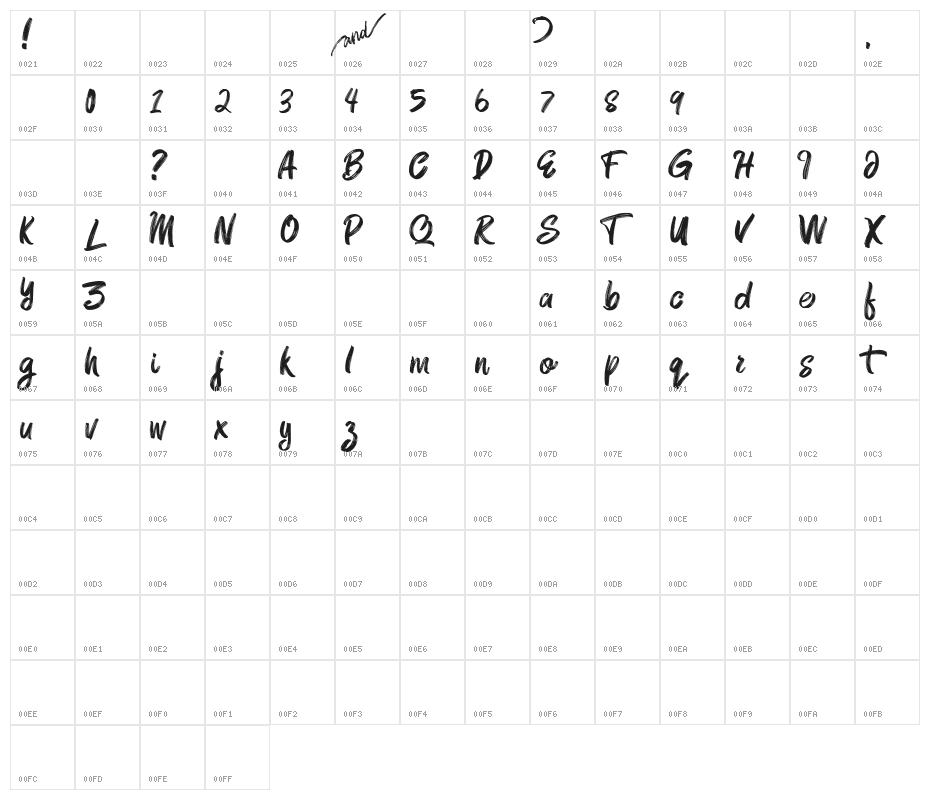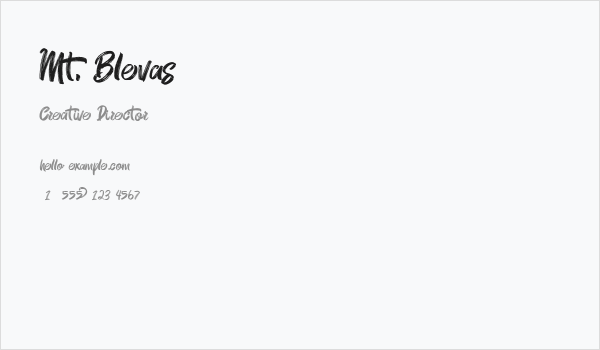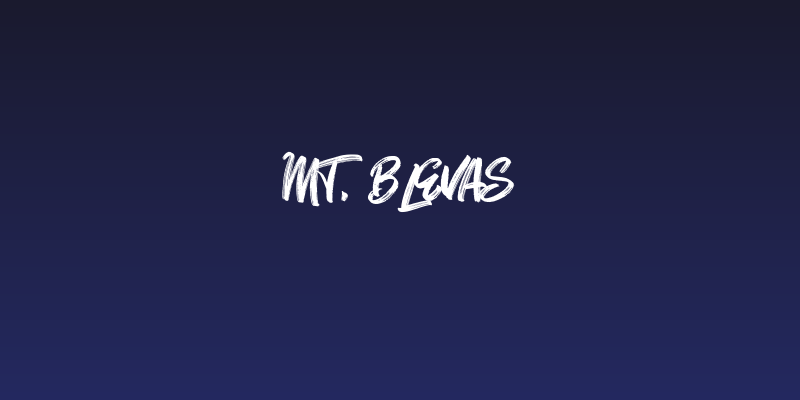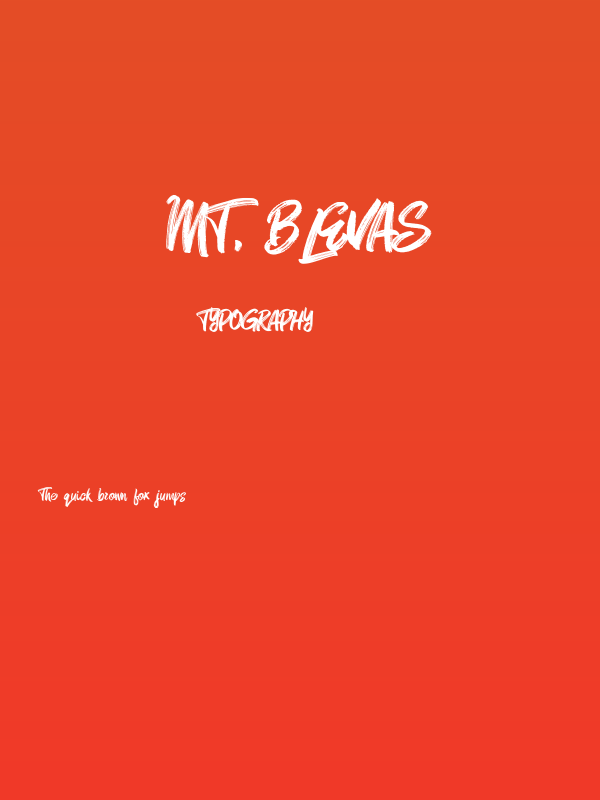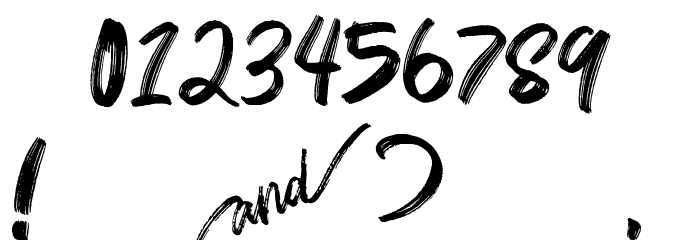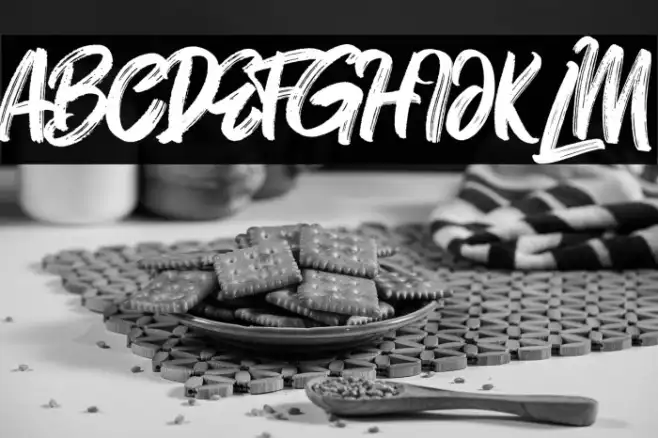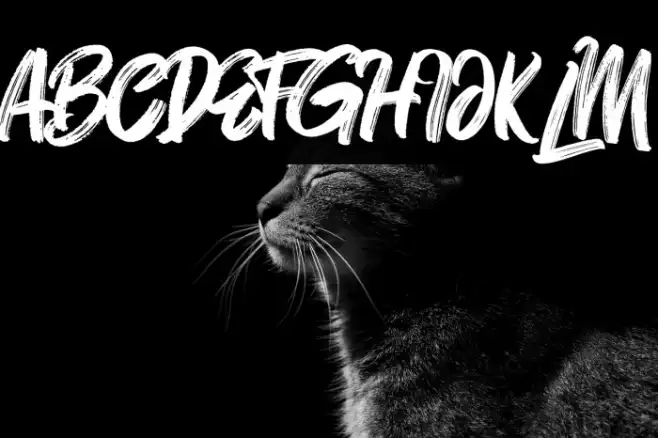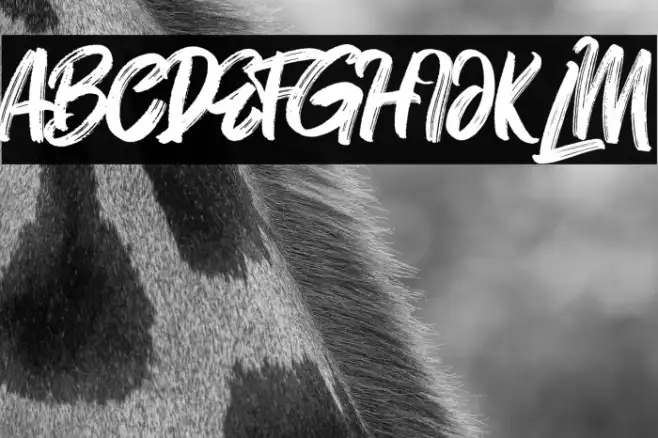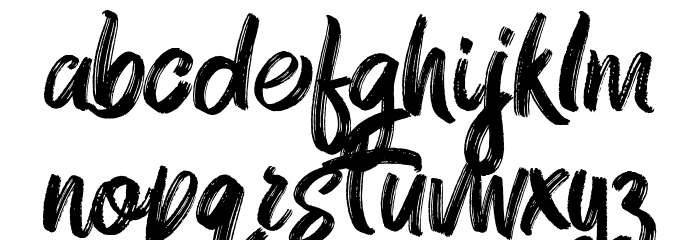
Mt. Blevas Font
Mt. Blevas Description
This font exhibits a bold, expressive brush script style, characterized by its dynamic and energetic strokes. The letters are crafted with a sense of movement, giving them a lively and spontaneous appearance. The uppercase and lowercase characters maintain a consistent flow, with some letters featuring exaggerated curves and loops. The numbers and special characters are equally expressive, complementing the overall aesthetic. The font's texture mimics the effect of a dry brush, adding a tactile quality to the design. This style is ideal for projects that require a personal, handcrafted touch.